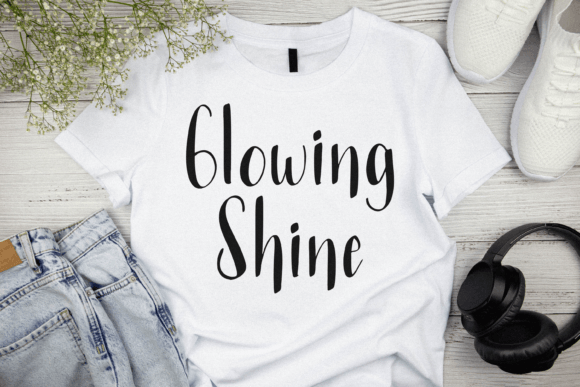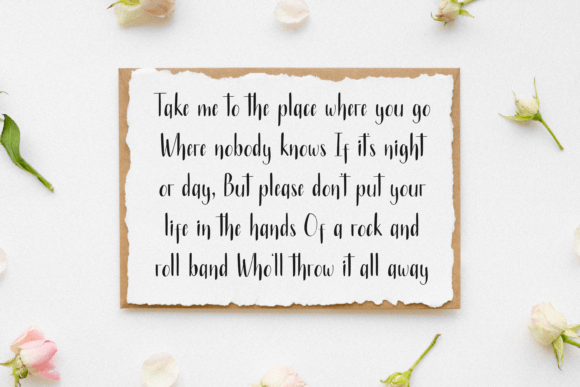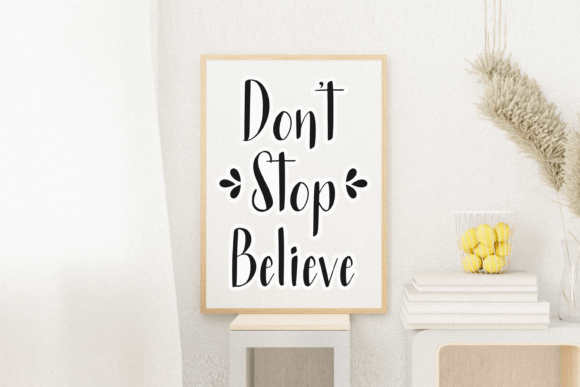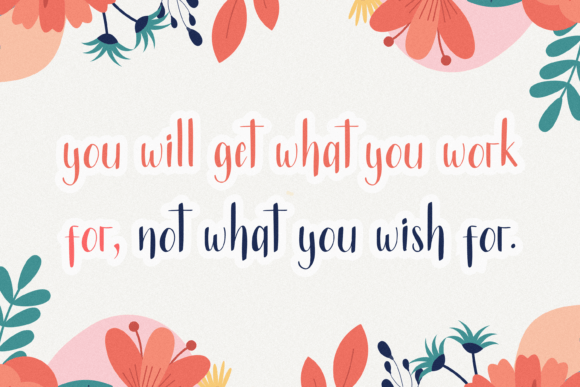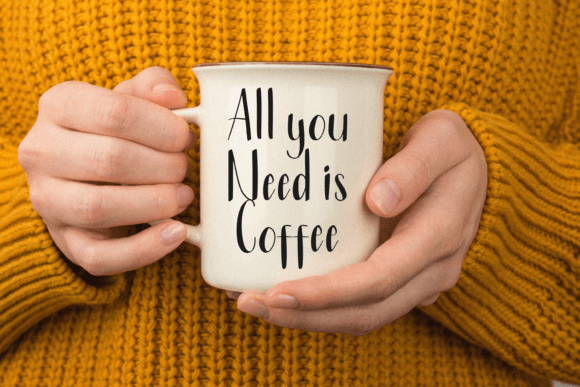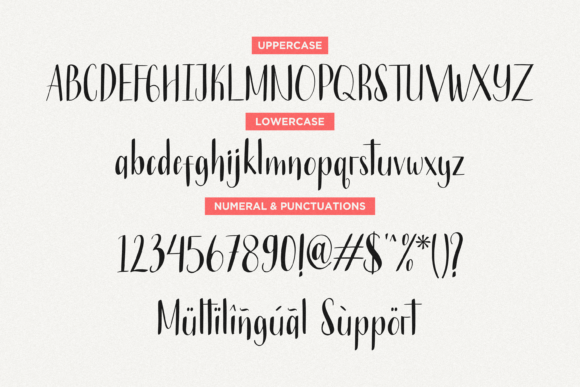
Discover the Joy of Handwritten Charm with Bencoleng Font
Have you ever been rummaging through your craft supplies, searching for the perfect combination of glue, glitter, and creativity to bring your ideas to life? That’s exactly the moment when the right font can make all the difference. It’s in those moments of creative chaos that you stumble upon a font that becomes your new best friend – and for many designers, that font is Bencoleng.
Bencoleng Font is a delightful, casual handwritten font designed to add a touch of warmth and personality to your projects. Whether you’re creating digital designs, crafting greeting cards, or putting together presentations, this font is the perfect companion to help you express your unique style. Its versatility and charm make it a valuable addition to any designer’s toolkit.
Bencoleng Font Key Features
- Unique Characteristics: This font features a unique blend of traditional and modern design elements, making it suitable for various design projects, including logos, branding, and typography.
- Font Style: The font is available in regular and bold styles, providing flexibility for designers to create a range of visual effects and emphasize text as needed.
Bencoleng Font Review
I’ve had the chance to work with the Bencoleng Font, and I must say it’s a unique addition to any design project. Here are my thoughts on what works well and what doesn’t.
- Unique Character: The Bencoleng Font stands out with its quirky, hand-drawn feel. It’s perfect for projects that need a bit of personality.
- Legibility: Despite its unconventional look, the font is surprisingly easy to read. The letterforms are well-designed, making it suitable for body text.
- Customization Options: The font offers a range of weights and styles, allowing designers to fine-tune the look to suit their project’s needs.
- Limited Script Support: The Bencoleng Font doesn’t include a full set of script glyphs, which might limit its use for certain projects.
- Not Ideal for Body Text: While legible, the font is still a bit too ornate for large blocks of body text. It’s best used for headings, titles, or other emphasis.
The Bencoleng Font is a great addition to any designer’s toolkit, offering a unique and customizable solution for projects that need a bit of flair. While it may not be suitable for all projects, it’s a solid choice for those looking to add some personality to their design.
Bencoleng Font Practical Application Guide
Tips for Getting the Most Out of Bencoleng Font
To get the most out of the Bencoleng font, use it for headings and titles to add a touch of elegance to your designs. You can also experiment with different font sizes and colors to create a unique look.
Q: Can I customize the Bencoleng font?
Yes, Bencoleng font is designed to be highly customizable. It supports advanced OpenType features, such as ligatures, swashes, and stylistic sets, allowing designers to create unique and tailored typography for their projects.